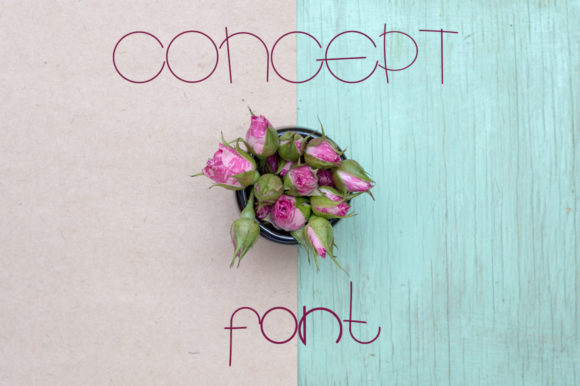
Unleash the power of Concept Font, the display font that will transform your designs into captivating masterpieces. Crafted by the visionary artist Ana Babi, Concept Font is a symphony of sleek lines and geometric precision, designed to elevate your visual creations to unprecedented heights. Its thin, elegant letters dance across the screen, exuding an aura of sophistication and modernity.
Whether you're crafting eye-catching headlines, creating stunning posters, or designing sleek logos, Concept Font is the perfect choice for adding a touch of style and impact. Its versatility knows no bounds, making it the ideal font for a myriad of design projects, from formal invitations to informal social media posts.
Concept Font is more than just a font; it's a gateway to unlocking your creative potential. Its clean lines and sharp angles evoke a sense of clarity and precision, inviting you to express your ideas with unparalleled clarity. The font's minimalist aesthetic allows your content to take center stage, ensuring that your message shines through with maximum impact.
Embrace the allure of Concept Font and watch as your designs blossom into works of art. Its timeless appeal and undeniable charm will leave a lasting impression on your audience, captivating their attention and igniting their imaginations. Let Concept Font be your creative companion, guiding you on a journey of visual storytelling that knows no limits.
Don't settle for ordinary fonts that blend into the background. Choose Concept Font, the display font that will set your designs apart, elevate your brand, and leave an unforgettable mark on the world. Experience the magic of Concept Font today and let your creativity soar to new heights!